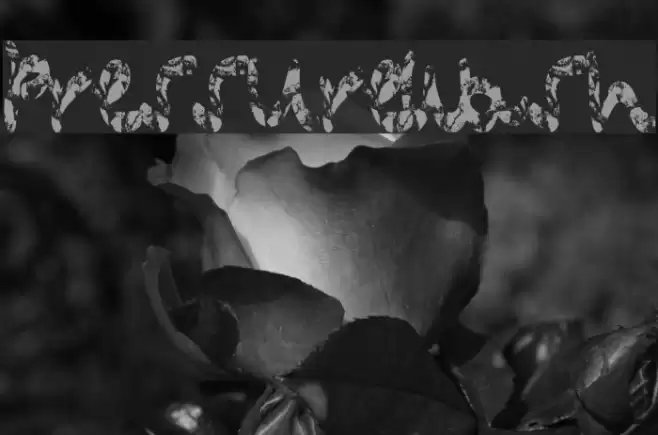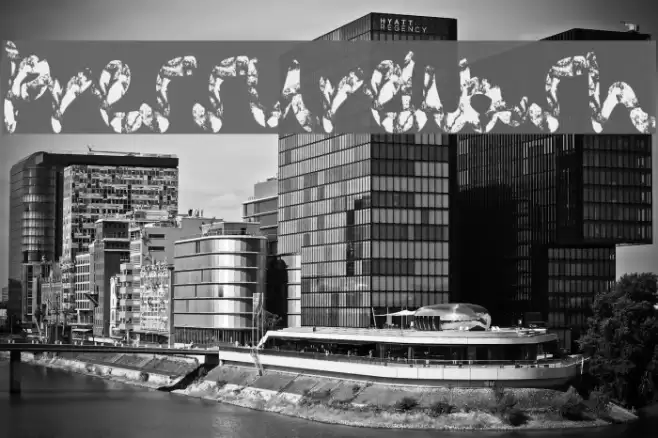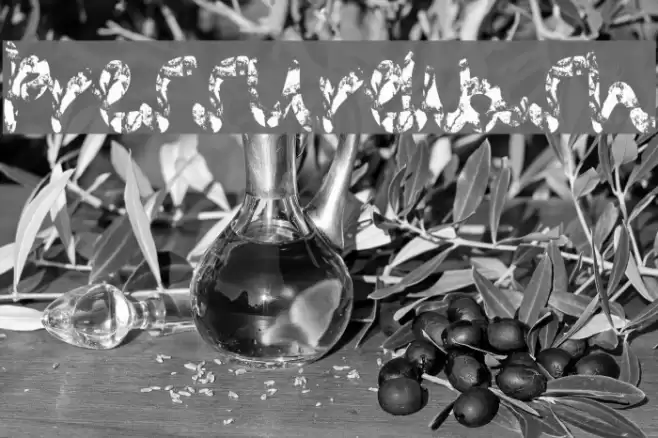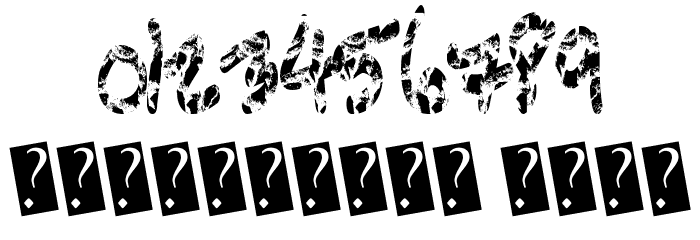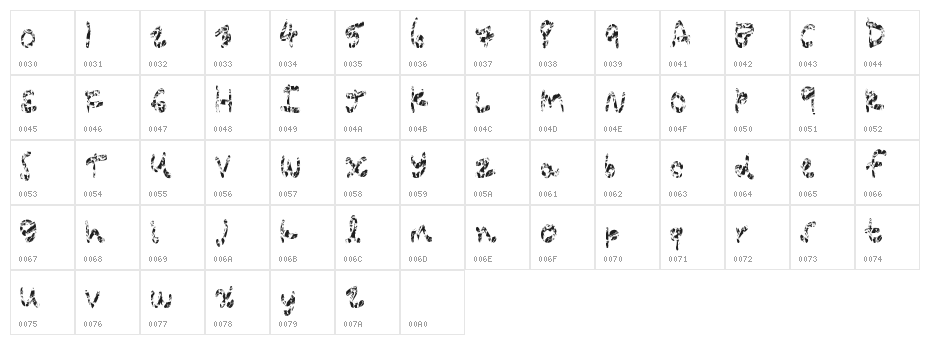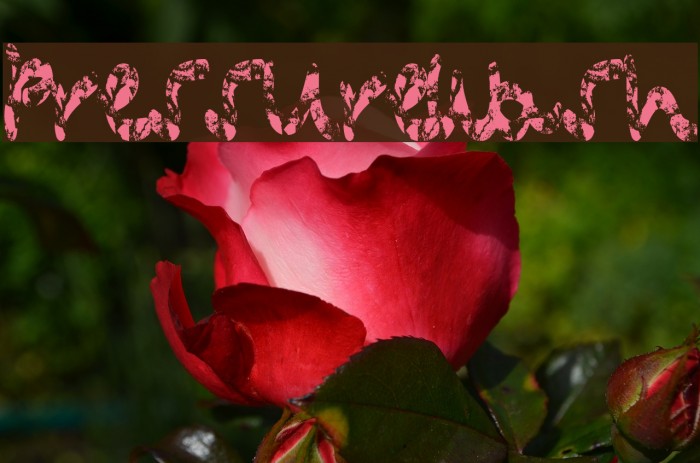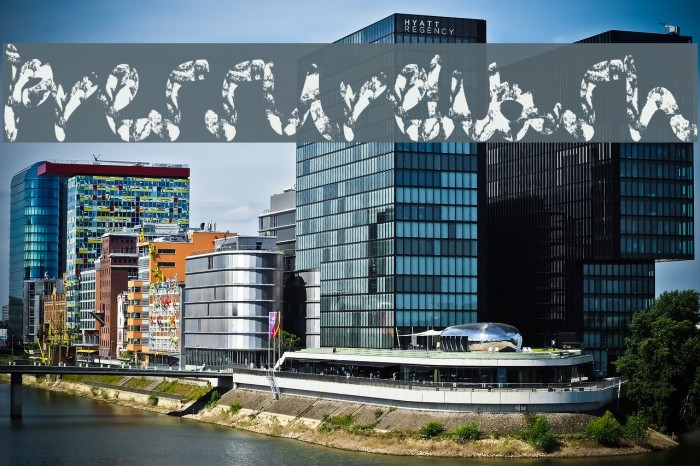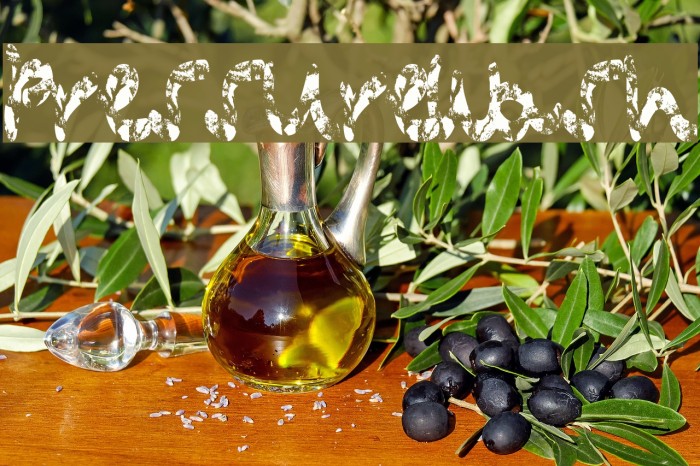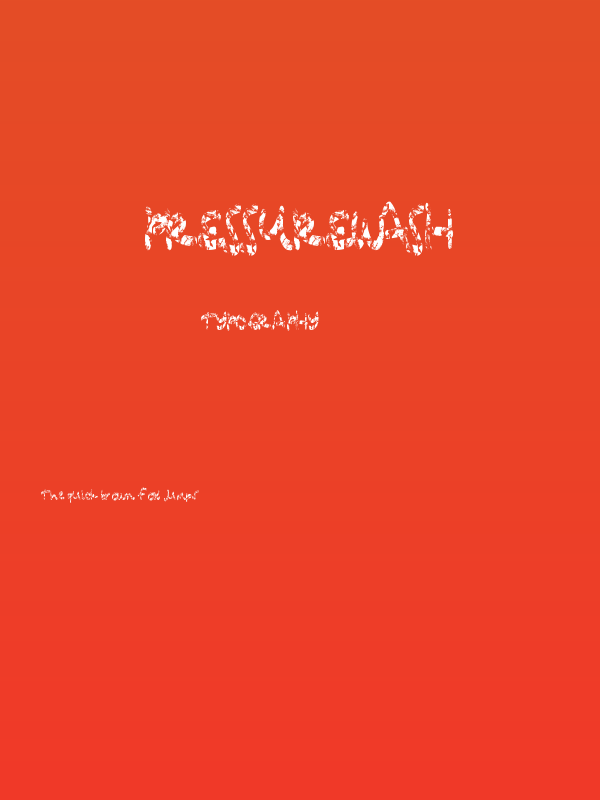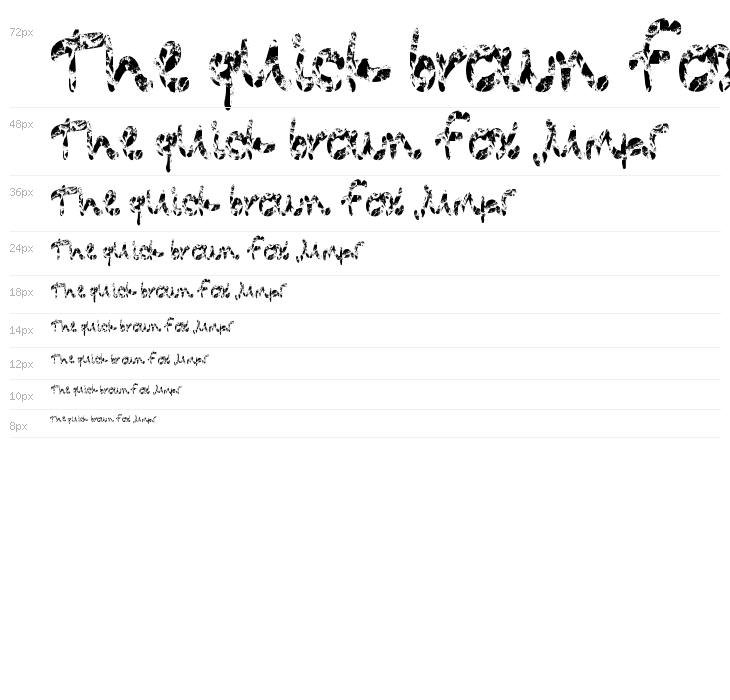
PressureWash Font
PressureWash Description
This font features a distressed, textured appearance, reminiscent of weathered surfaces or graffiti. The characters are bold and have an irregular, hand-painted style, giving them a rugged and edgy look. The uppercase and lowercase letters maintain a consistent style, with a playful yet chaotic energy. The numbers and special characters follow the same aesthetic, ensuring a cohesive look across all elements. This font is ideal for projects that require a raw, urban feel, such as street art-inspired designs or edgy branding materials.
A distressed, textured font with a rugged, hand-painted style from Uncategorized fonts.
- Proposed Projects: Ideal for street art designs, edgy branding, posters, and album covers.
- Overall Style: Urban, Edgy, Textured
- Use Case: Logos, Posters, Headlines